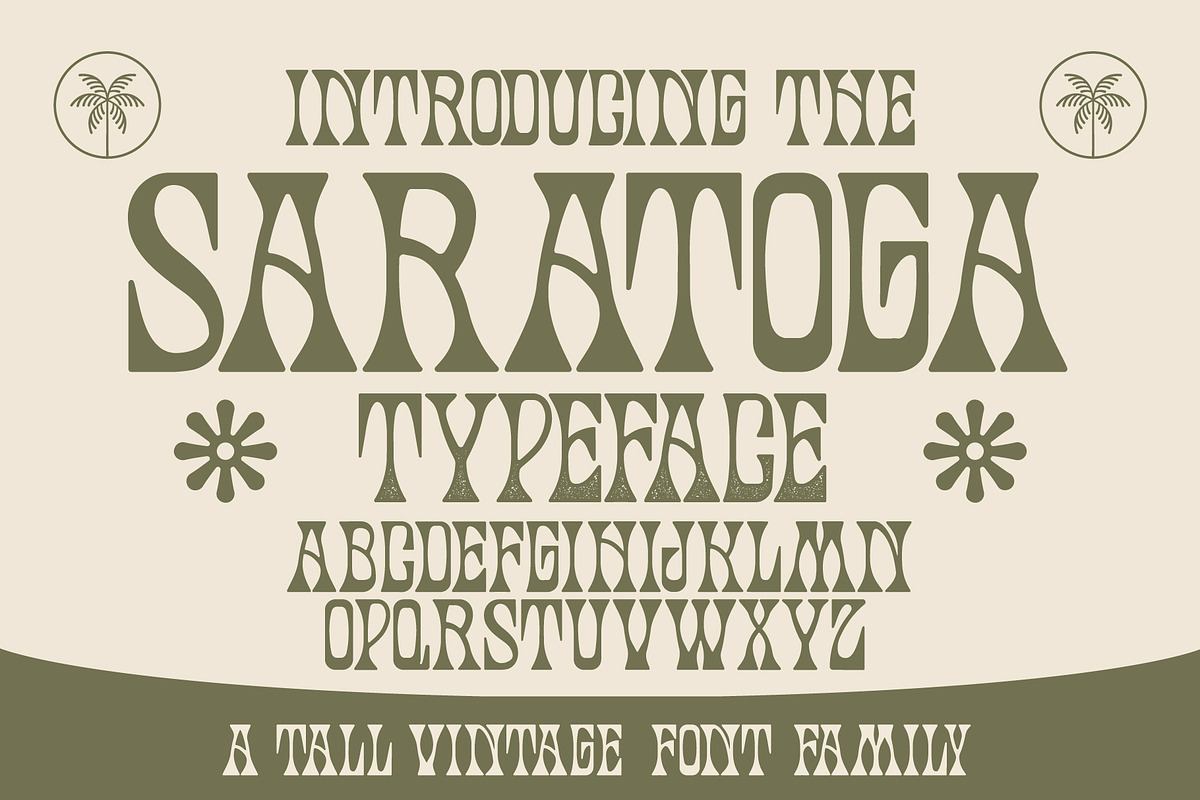
Saratoga Typeface | Groovy Font Free Download is a retro-inspired display font bursting with funky flair and vintage soul. Please note: you must purchase this font for commercial use, but you can test it through a free download. With its bold curves, playful swashes, and nostalgic rhythm, Saratoga is perfect for 70s-themed posters, music artwork, branding, apparel, product packaging, and social media content.
This font captures the essence of groovy design—full of personality, movement, and good vibes. Whether you're designing a psychedelic logo or a bold retro headline, Saratoga Typeface | Groovy Font Free Download brings vibrant charm and standout style to every project. Fully compatible with Adobe Illustrator, Photoshop, Canva, and more. Download it today for personal use and give your typography a far-out twist with the funky energy of Saratoga.